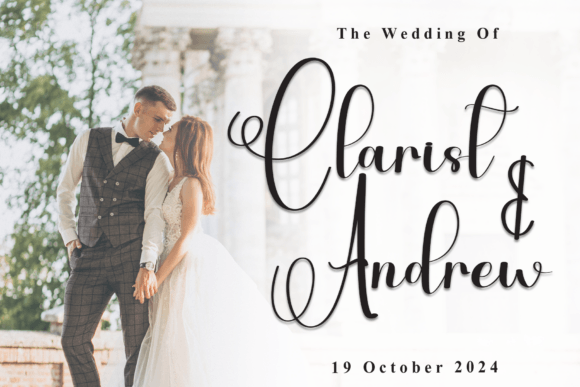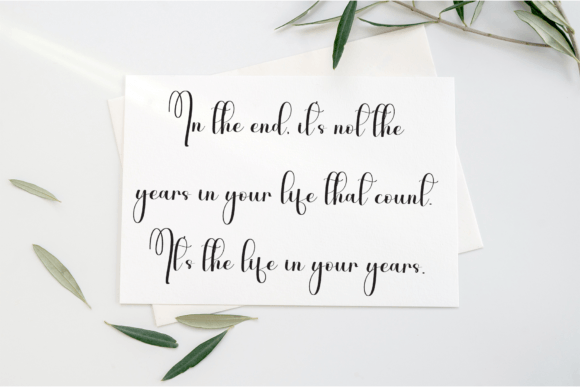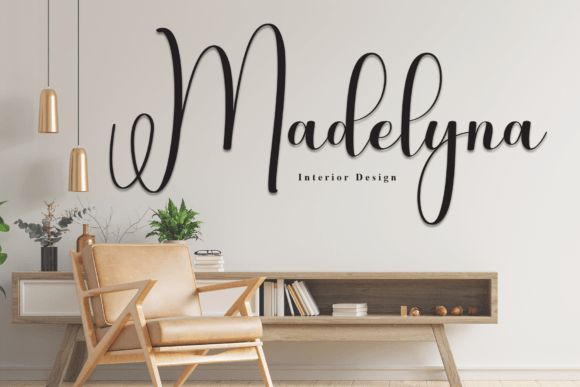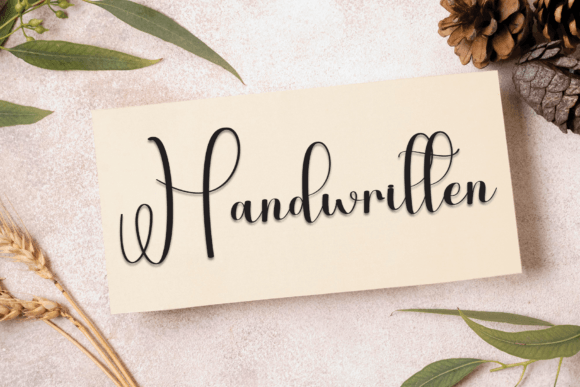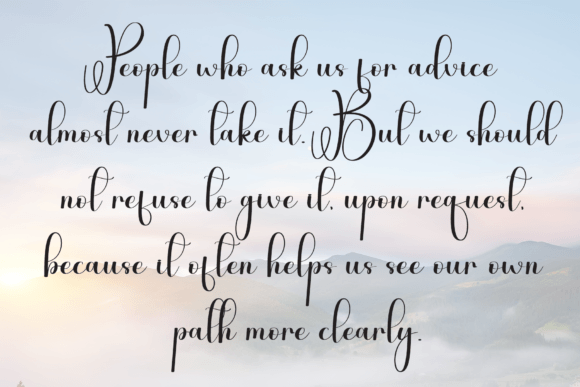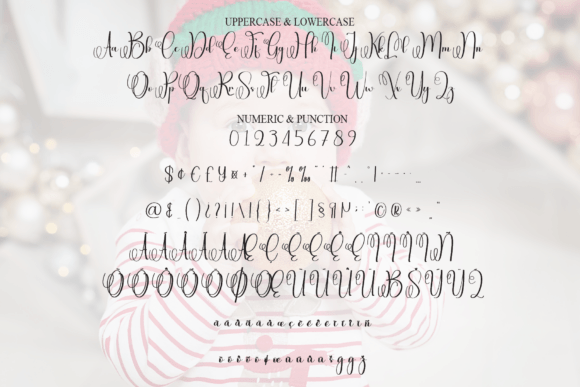
Getting into the Holiday Spirit with the Perfect Font
It’s that time of the year when creativity runs high and the festive atmosphere inspires us to create something truly special. Whether it’s designing holiday cards, invitations, or even a logo for your small business, the right font can make all the difference. Have you ever found yourself struggling to choose the perfect font for your project, only to end up with something that feels generic and uninspired?
Enter Baby Christmas Font, a stylish script font that embodies the essence of elegant handwriting. Its smooth, flowing lines are perfect for adding a personal touch to your designs. Whether you’re a seasoned designer or a hobbyist, this font is a valuable asset that can elevate your work and make it stand out from the crowd.
Baby Christmas Font Key Features
- Unique Characteristic: Hand-drawn, playful, and whimsical design elements, perfect for Christmas and winter-themed projects
Baby Christmas Font Review
Overall, I was quite excited to review the “Baby Christmas Font”. As a designer, I appreciate unique and creative typefaces, especially those with a festive twist. Here’s my honest take on this font.
- The font is adorable and captures the essence of Christmas. It’s perfect for creating a playful and whimsical atmosphere.
- The font is highly customizable, allowing users to adjust the size, color, and style to suit their needs.
- The font includes a range of characters, including uppercase and lowercase letters, numbers, and punctuation marks.
- The font may be too cutesy for some users, which could detract from its overall appeal.
- The font doesn’t include any bold or italic styles, which may limit its versatility.
- The font may not be suitable for formal or professional applications due to its playful nature.
I’d say the “Baby Christmas Font” is a great choice for anyone looking to add a touch of festive fun to their designs. While it may have some limitations, its unique charm and customization options make it a great addition to any designer’s toolkit.
Alternatives to Baby Christmas Font
Copperplate Script
Copperplate Script is a classic, elegant script font that resembles handwritten text. It’s perfect for creating a sophisticated and refined look for your designs, especially for invitations, cards, and gift tags.
Compared to Baby Christmas Font, Copperplate Script is more formal and less playful, but it can still evoke a sense of festivity and celebration. It’s a great alternative for designers who want to add a touch of luxury to their designs.
Great Vibes is a beautiful, handwritten font with a relaxed and casual feel. It’s ideal for creating a fun and laid-back atmosphere in your designs, especially for social media graphics, posters, and advertisements.
Compared to Baby Christmas Font, Great Vibes is more casual and less traditional, but it can still add a playful touch to your designs. It’s a great alternative for designers who want to create a more modern and trendy look.